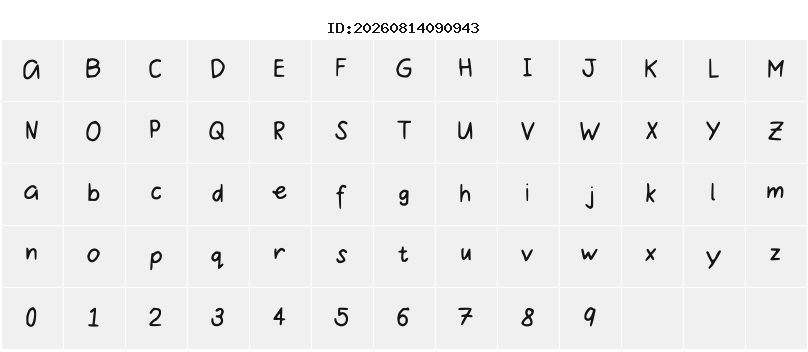
• Font Name: SugarLemonade
• Full Font Name: SugarLemonade
About SugarLemonade.ttf
SugarLemonade.ttf is a modern, elegant sans-serif font designed for ultimate readability and visual harmony. Perfect for branding, headlines, web design, and print materials.